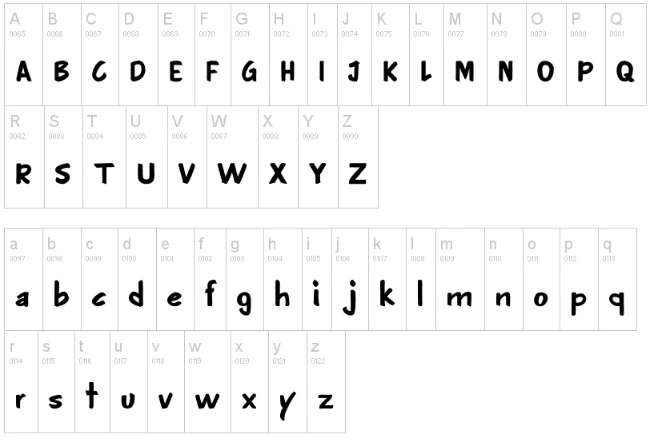
Luckystrikes Font
Luckystrikes Font is perfect for casino branding, gambling event posters, entertainment venue signage, vintage advertising campaigns, retro gaming graphics, classic Americana designs, nostalgic diner logos, old-school barbershop signs, traditional tattoo parlor branding, and authentic mid-century promotional materials.
Luckystrikes Font is exciting because it captures the bold confidence and classic American swagger of vintage entertainment culture through distinctive letterforms that evoke the golden age of neon signs and classic advertising. This charismatically designed typeface combines retro charm with contemporary functionality, making it perfect for brands that want to communicate luck, excitement, and timeless American entertainment appeal.
The Luckystrikes Font family includes bold display weights with vintage character styling, along with supporting text variations and decorative elements. The font features classic American lettering proportions, retro styling details, and authentic mid-century design characteristics that reflect the craftsmanship of traditional sign painters and commercial artists.
The classic American appeal of Luckystrikes Font makes it an essential tool for entertainment companies, hospitality venues, and lifestyle brands that want to establish connections with vintage Americana and classic entertainment culture. The font's confident character helps communicate values of excitement, tradition, and authentic American entertainment that resonate with audiences seeking genuine retro experiences.
Entertainment venues, classic diners, and vintage-inspired businesses consistently choose Luckystrikes Font for its ability to instantly communicate retro American charm and entertainment sophistication through typography. The font excels in applications where establishing nostalgic credibility and classic appeal are crucial to brand positioning, making it particularly effective for hospitality, entertainment, and lifestyle brands targeting vintage culture enthusiasts.
This font's comprehensive character set includes vintage-styled letterforms, classic numerals, retro punctuation marks, and specialized symbols that support authentic mid-century typography composition. The careful preservation of American lettering traditions ensures genuine vintage appearance while maintaining contemporary functionality for Luckystrikes Font Free Download across all entertainment and nostalgic design applications.